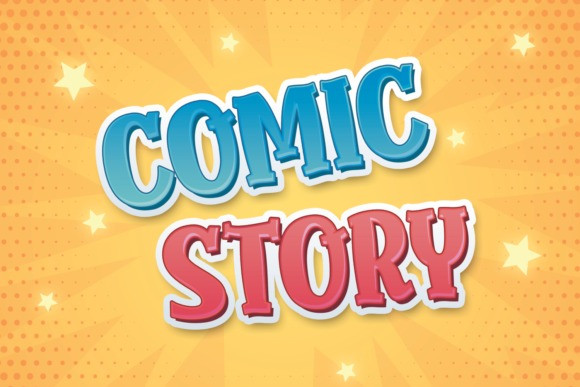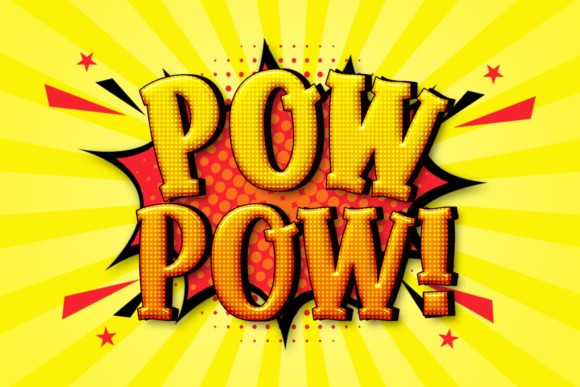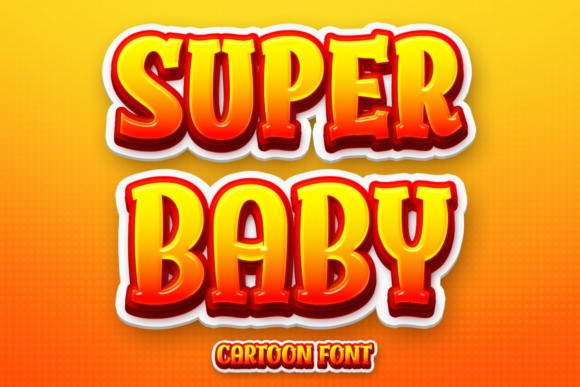
Super Baby Font
Super Baby Font is a cool, bold and fun display font. Whether you use it for cartoon related designs, children games or just any creation that requires a lovely touch, this font will be an amazing choice.